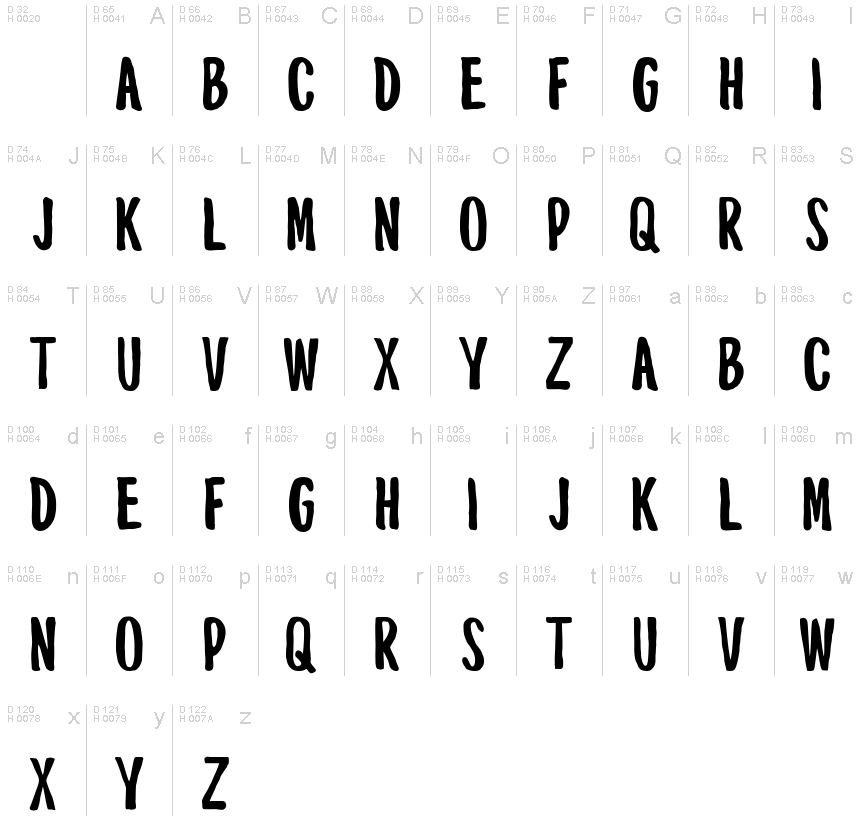
Mouthpiece Regular
Mouthpiece, a captivating display font crafted by HENRIavecunK, exudes a bold and unapologetic persona. Its condensed width and rugged, handcrafted aesthetic convey a sense of raw power and unwavering confidence. The distinctive letterforms, with their sharp edges and irregular textures, evoke a gritty, industrial vibe.
This versatile font shines in a variety of design contexts, from eye-catching posters and packaging to dynamic web interfaces and impactful social media content. Mouthpiece's unique character lends itself well to projects seeking to convey a sense of rebellion, authenticity, or a rebellious spirit, making it a valuable asset for designers and creative professionals who aim to make a lasting impression.
Mouthpiece Regular is a font designed by HENRIavecunK in 2016.